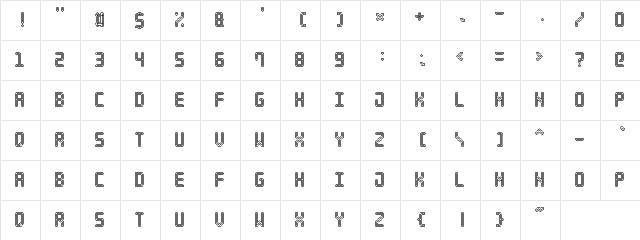
Neon Pixel-7 Regular
| Foundry | Style-7 |
| Designer | Sizenko Alexander |
Design Context for Neon Pixel-7 Typeface
Neon Pixel-7 has a distinctly futuristic character, with geometric precision and clean angles that feel at home in technology, gaming, and sci-fi contexts.
Pro Tip: Use Neon Pixel-7 in combination with a neutral sans for body text. Let it define the brand voice in headlines while keeping reading comfortable elsewhere.